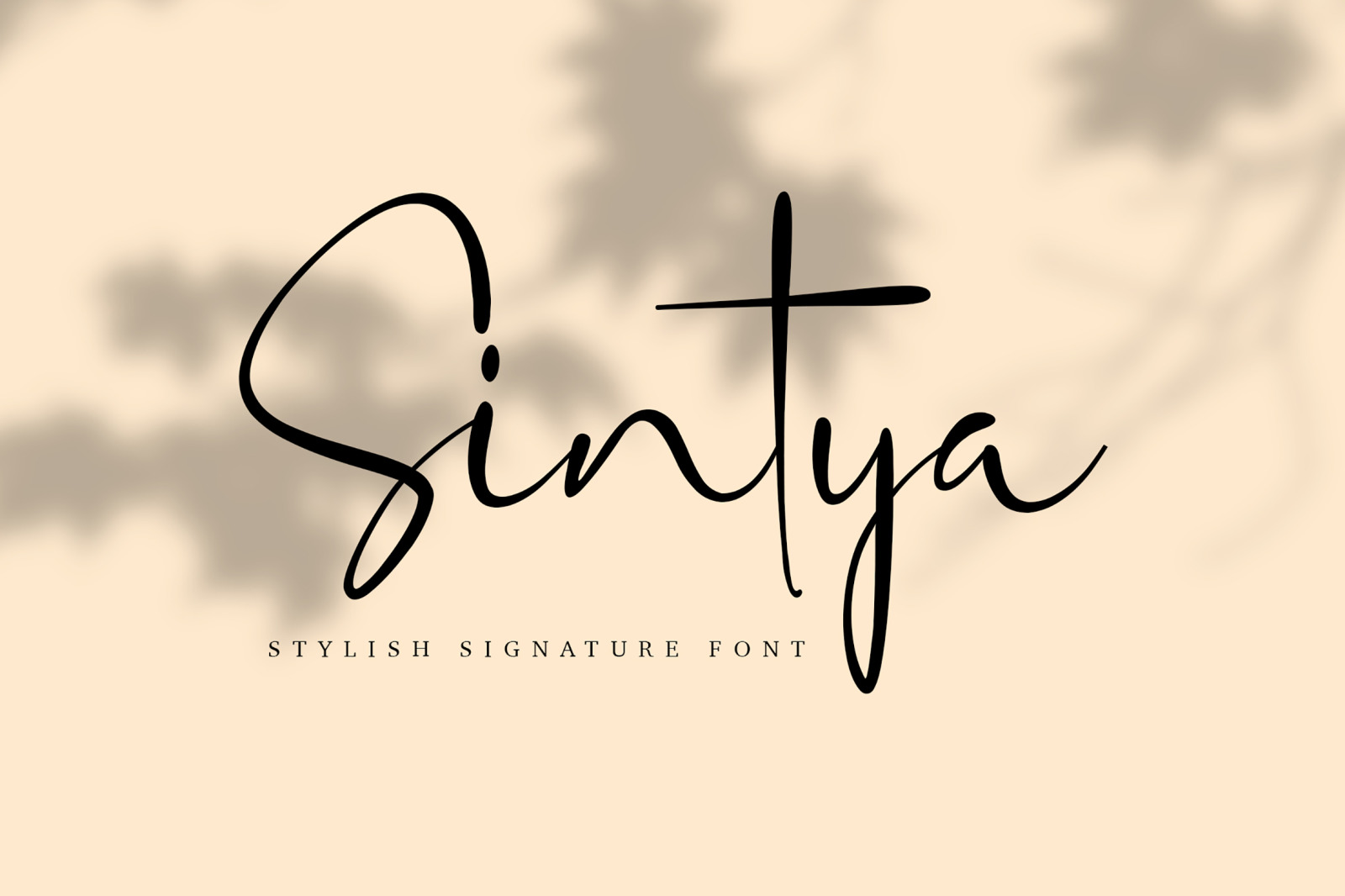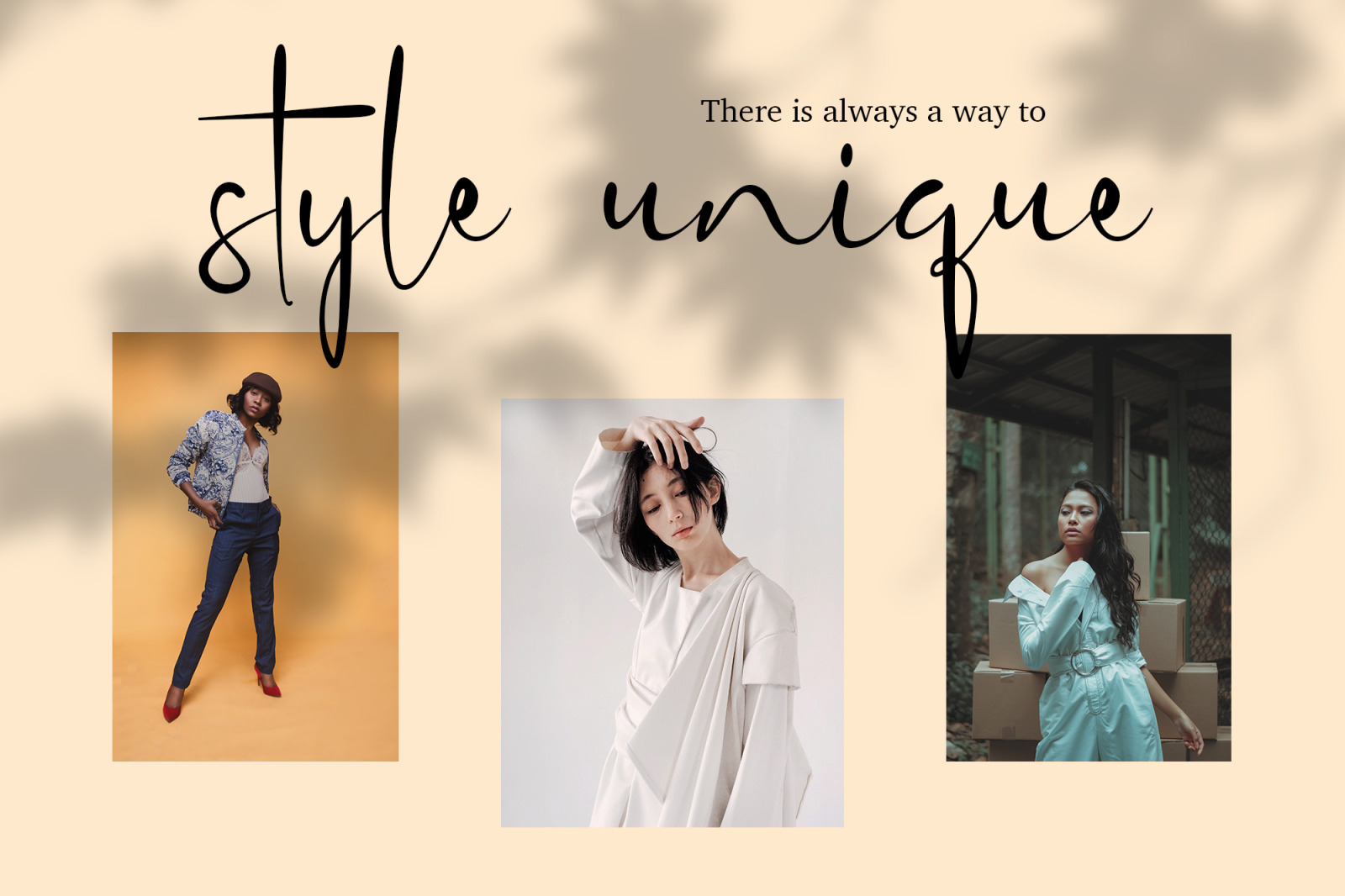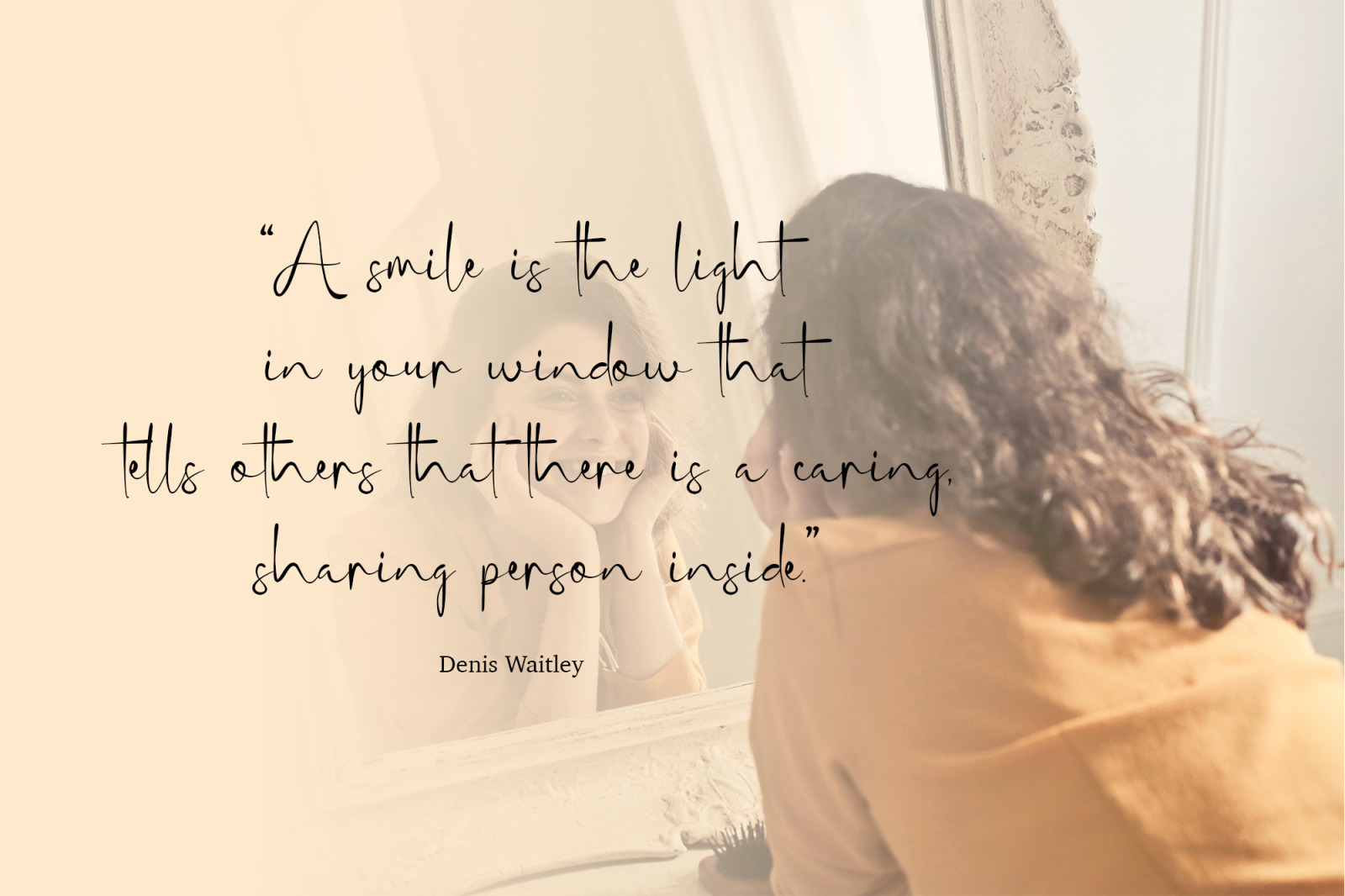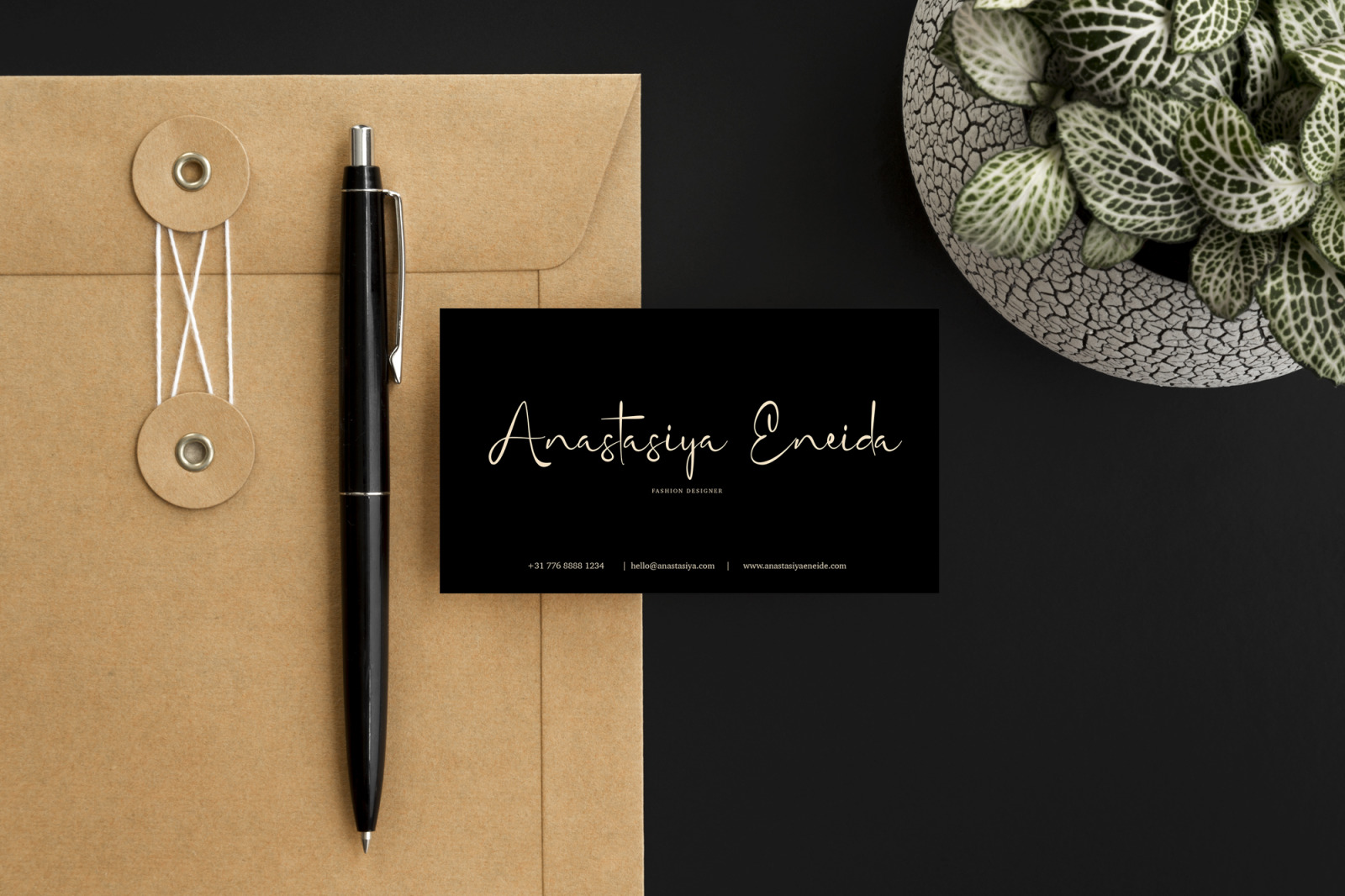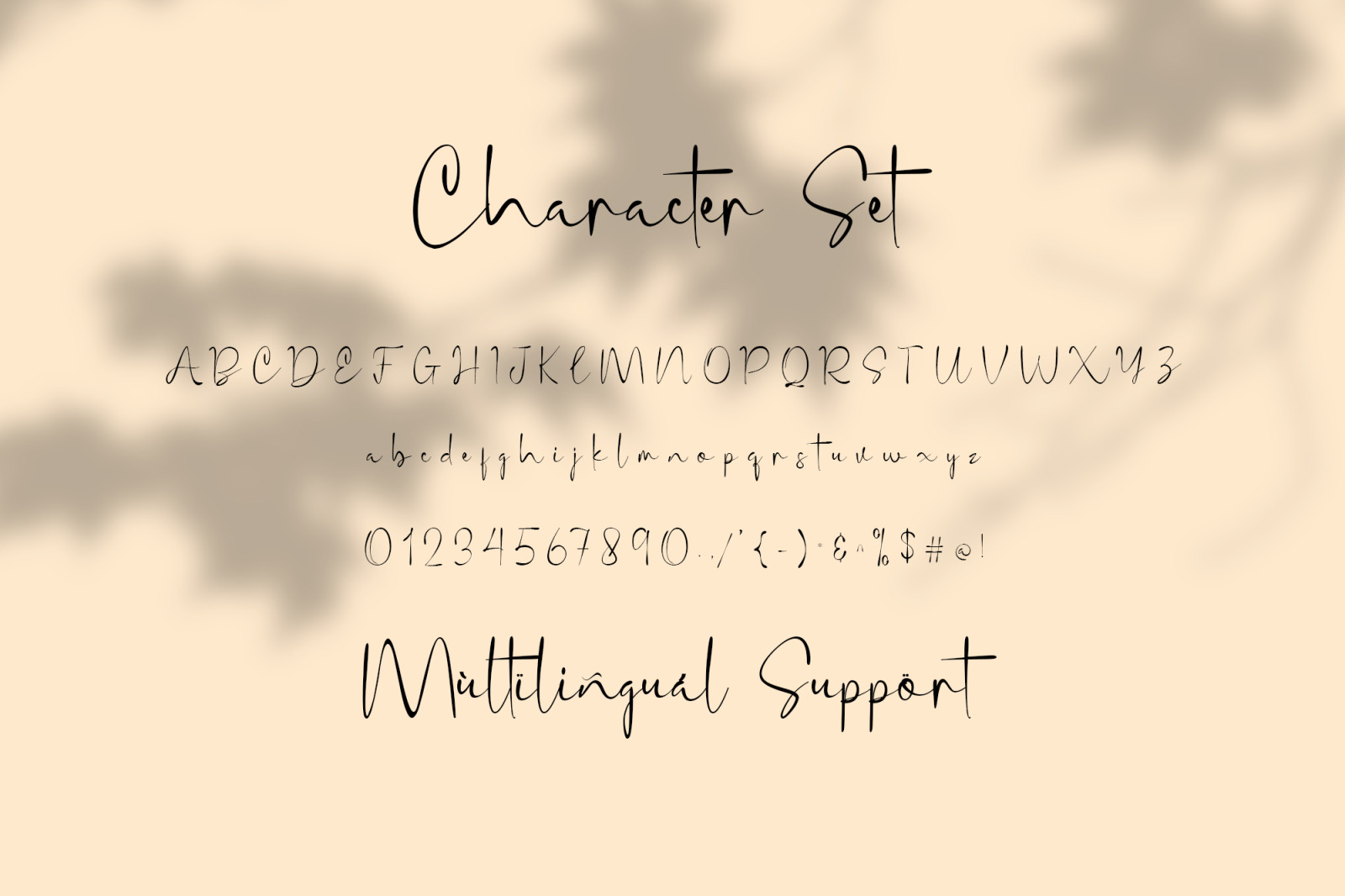
Sintya Stylish Signature Font
A stylish, modern, and beautiful hand-lettered signature font with an elegant feel. Sintya font is perfect for display projects such as quoted text, product name, logo, profile, boutique, wedding invitation, and much more. It's also perfect for fashion and beauty themed - or a stylish text overlay to any background image.
+ Uppercase & Lowercase letters
+ Numbering and Punctuation
+ Multilingual Support